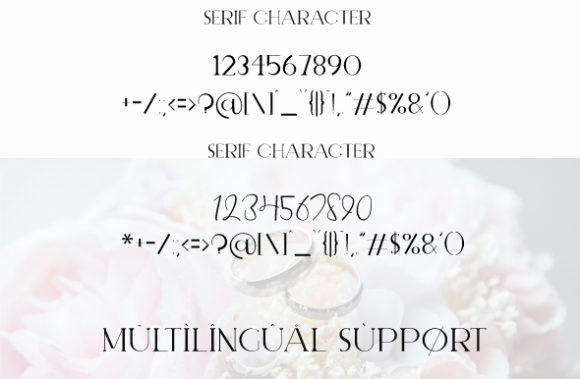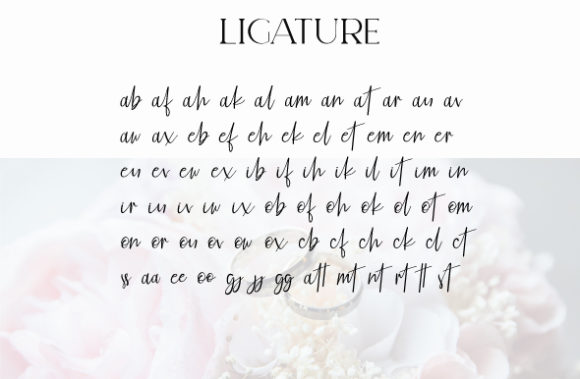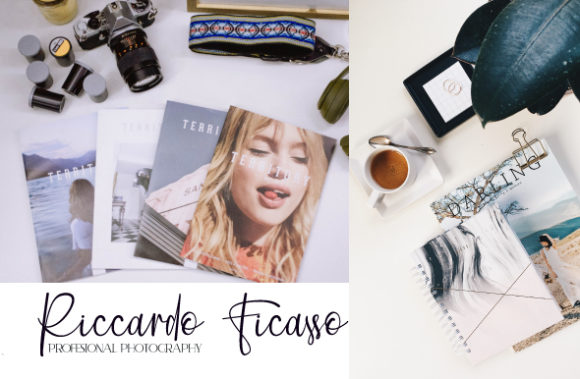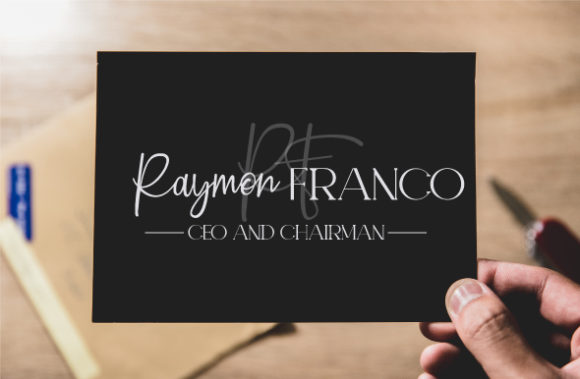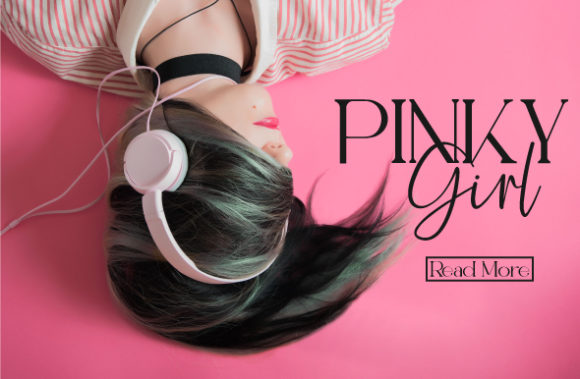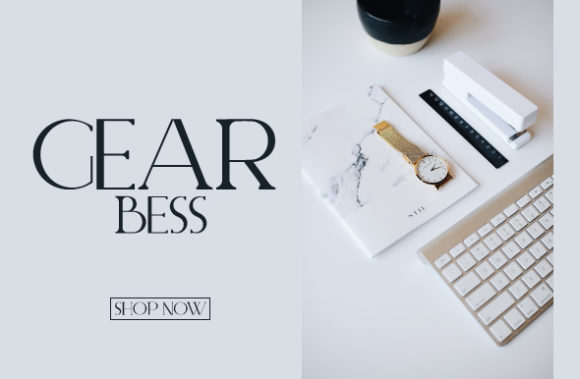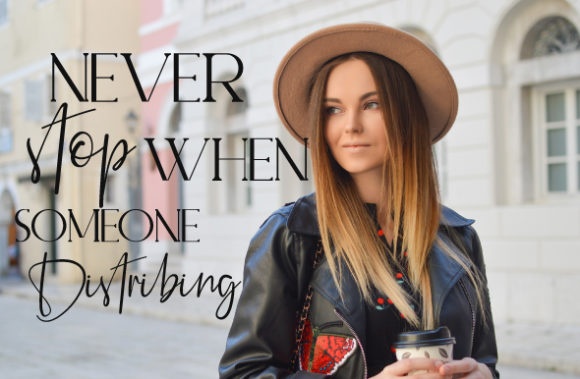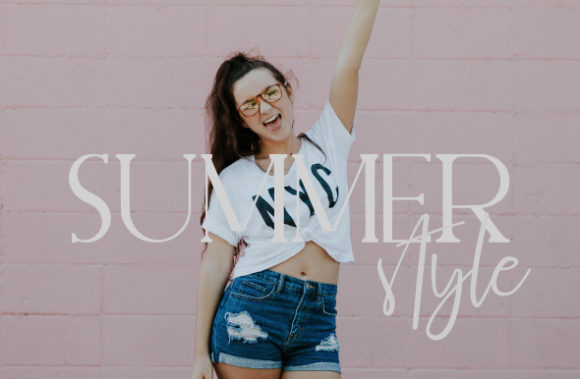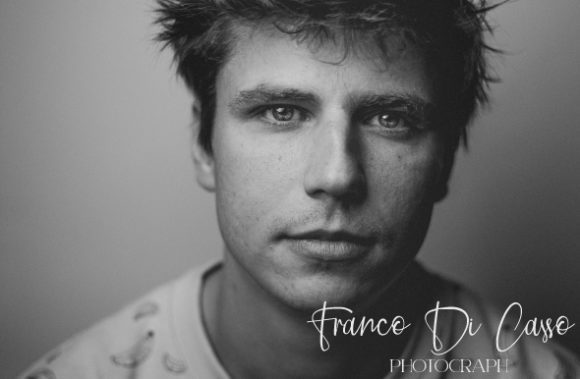
Elegant Fashion Duo Font
About Elegant Fashion Duo Font
The Elegant Fashion is an amazing font duo. It includes an elegant script, and a striking sans version which can be combined perfectly. It’s perfect for banners, wedding invitations, shirts, branding, logos and many more